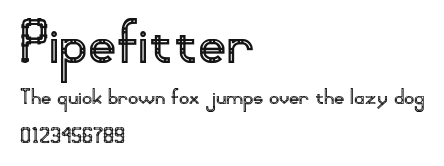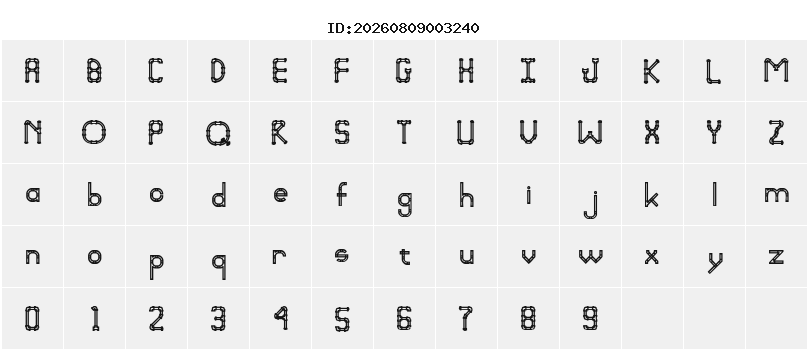
• Font Name: Pipefitter
• Full Font Name: Pipefitter Bold
About Pipefitter.ttf
Pipefitter.ttf is a modern, elegant sans-serif font designed for ultimate readability and visual harmony. Perfect for branding, headlines, web design, and print materials.